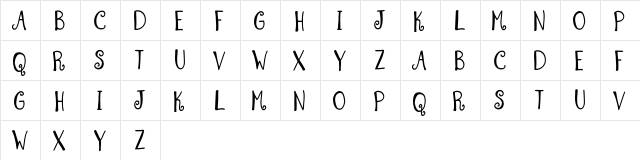
Summer Swirl Demo Regular
Design Context for Summer Swirl Demo Typeface
Summer Swirl Demo is built around its visual character rather than neutral utility — its distinctive forms are designed to make an impression at display sizes.
Font Pairing: Pair with a clean neutral sans-serif for body copy to let Summer Swirl Demo's character lead without overwhelming the composition.
Pro Tip: Treat Summer Swirl Demo as the centrepiece of your typographic hierarchy. One strong heading set in a decorative face can carry an entire layout.